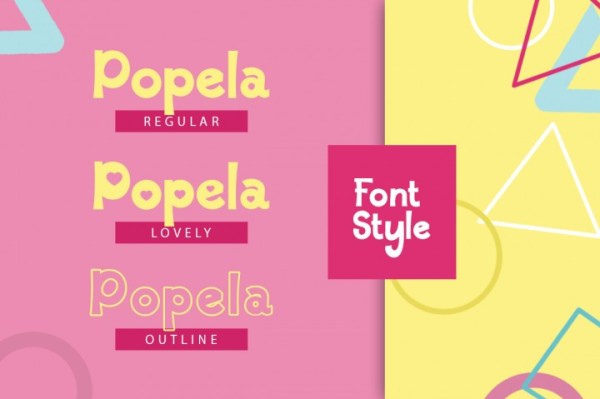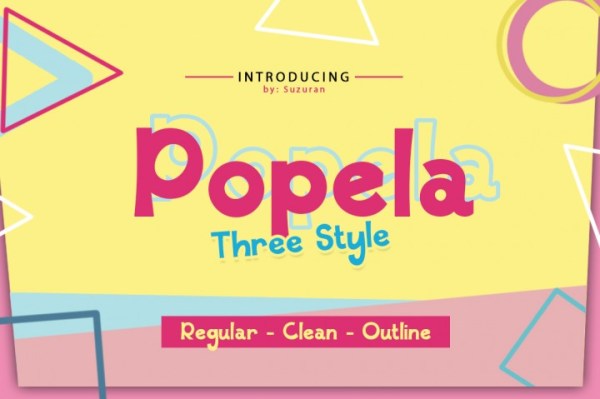
Font Frenzy: Popela Font
The Hungry Jpeg has a fun, cheerful Font named Popela by Suzuran for only $1 for a limited time only.
Popela font has 3 different styles, regular, clean & outline.and comes with a complete Commercial License.